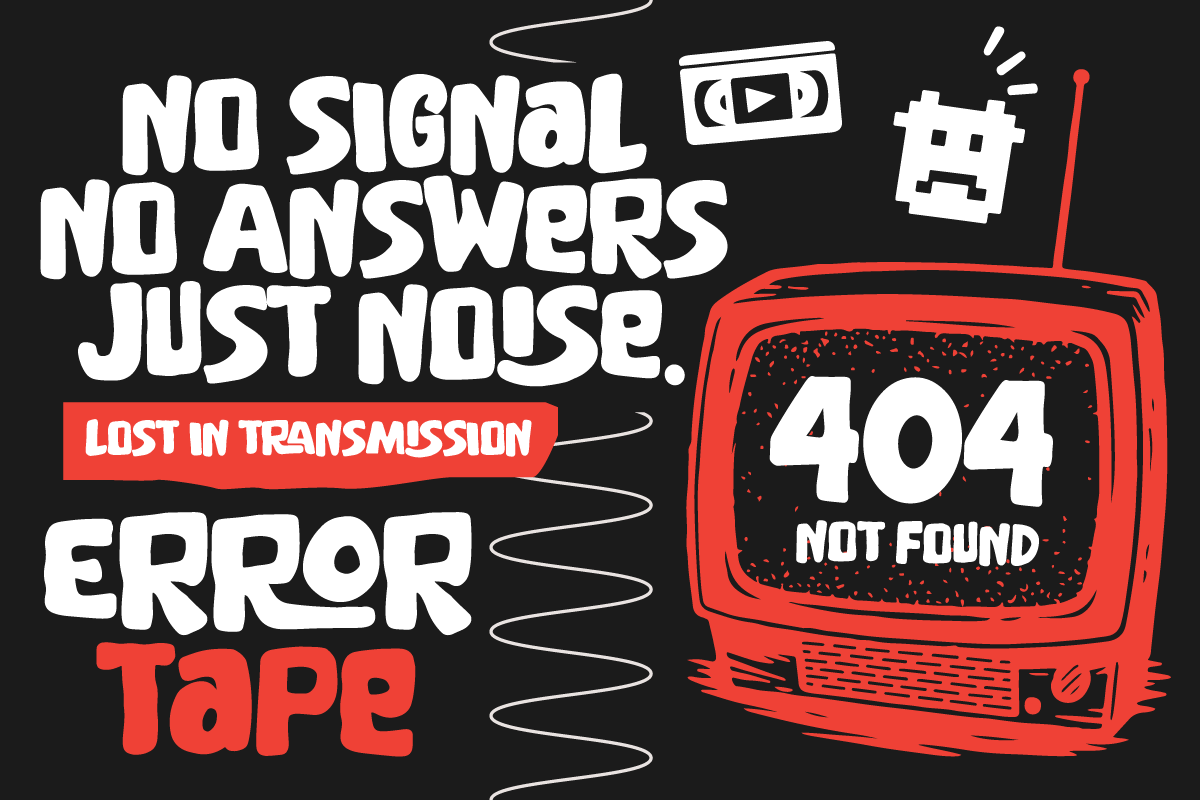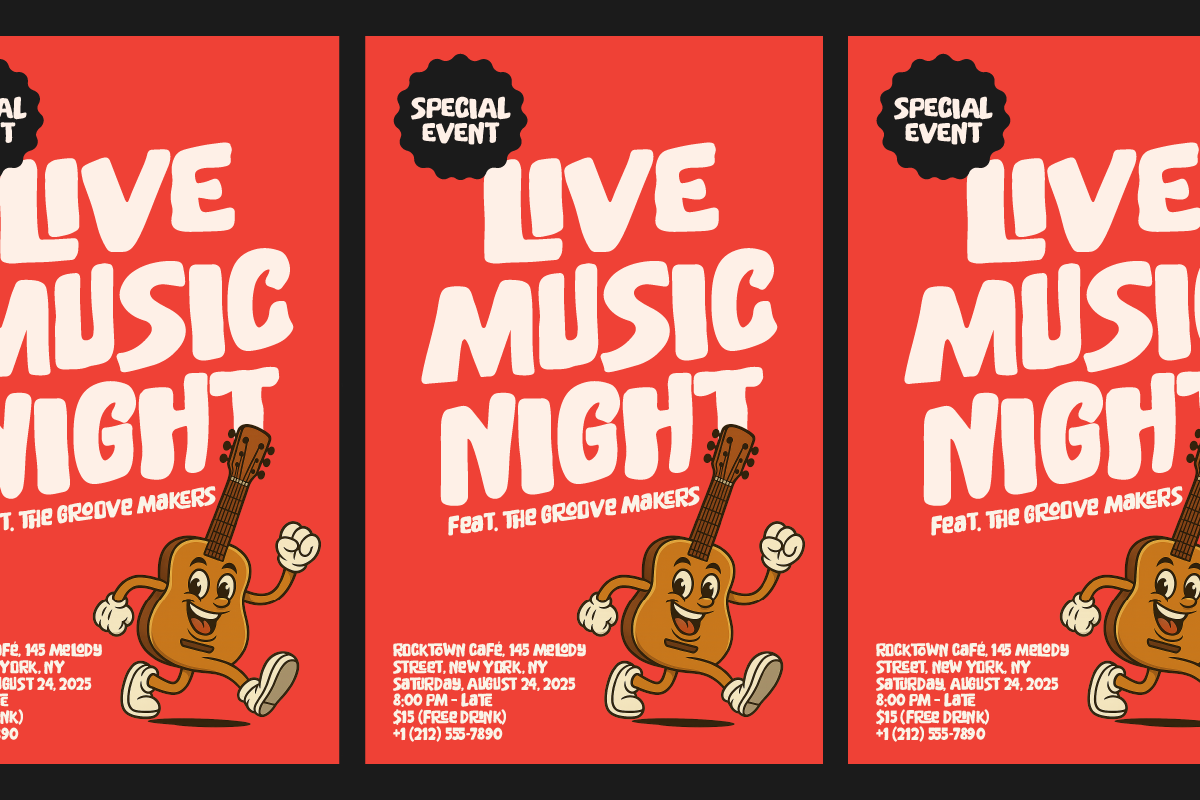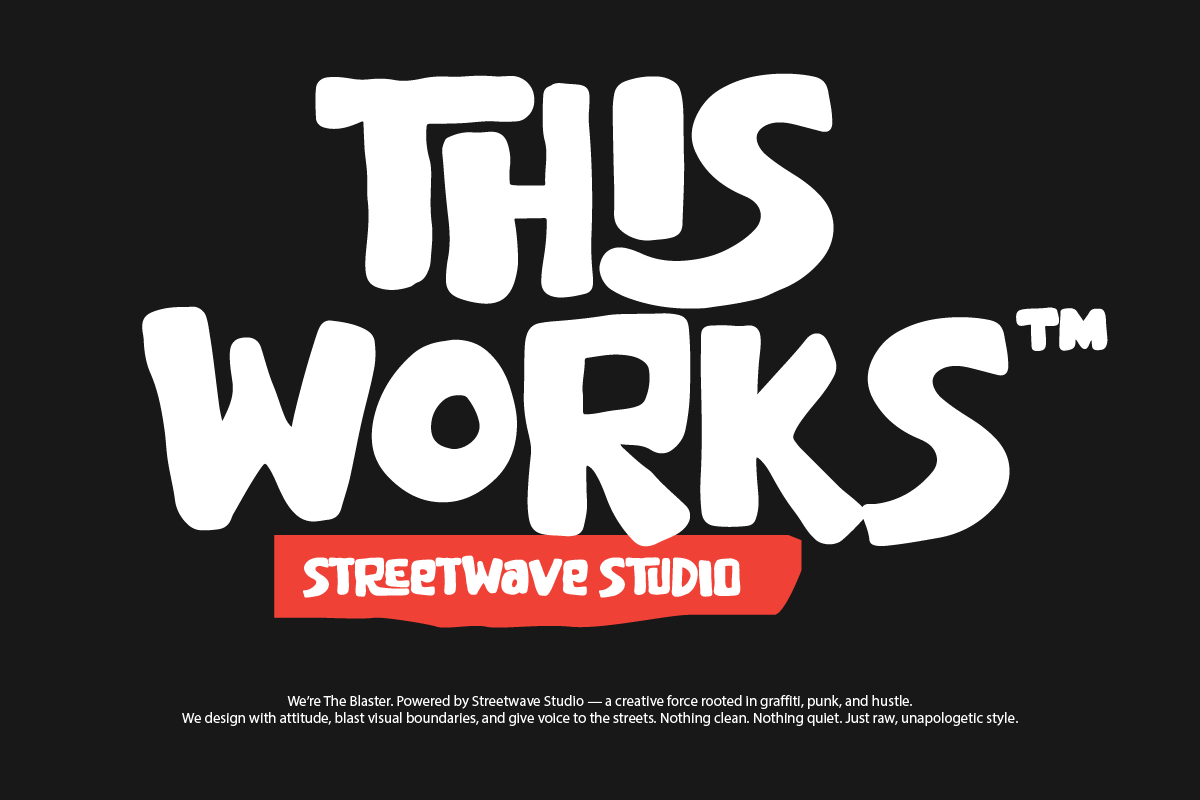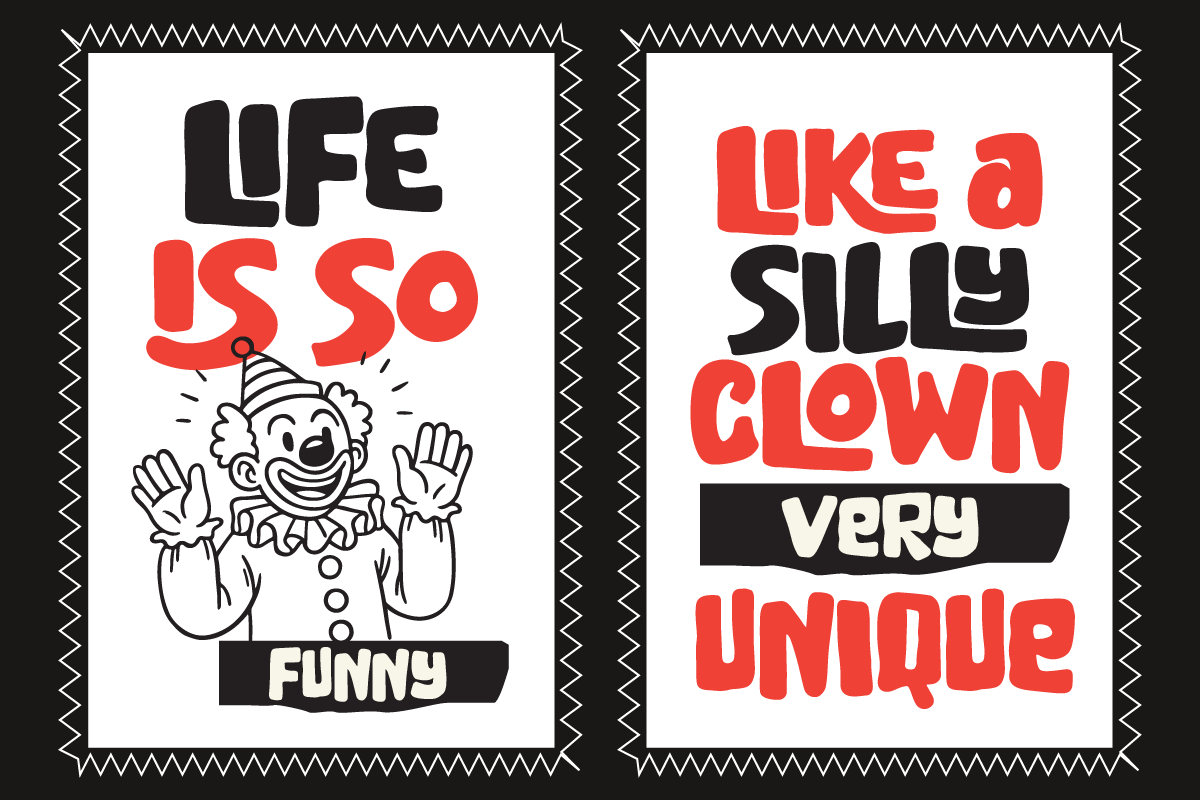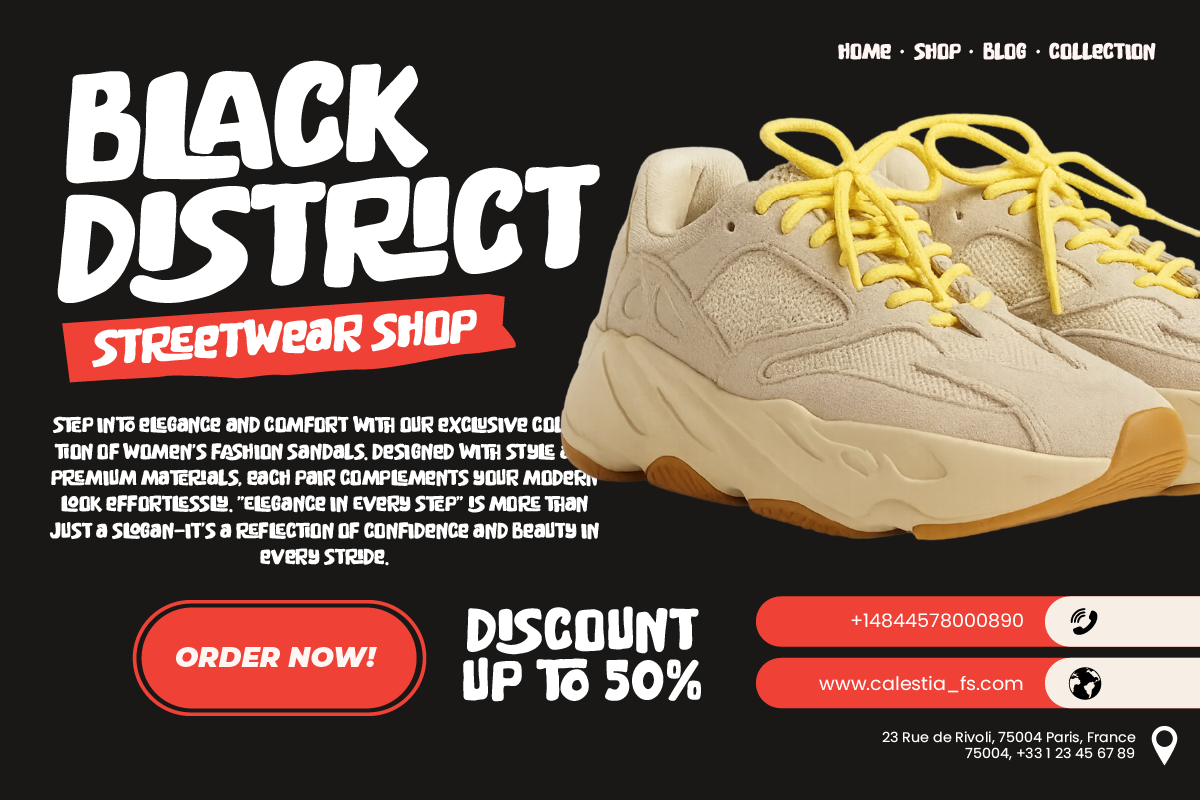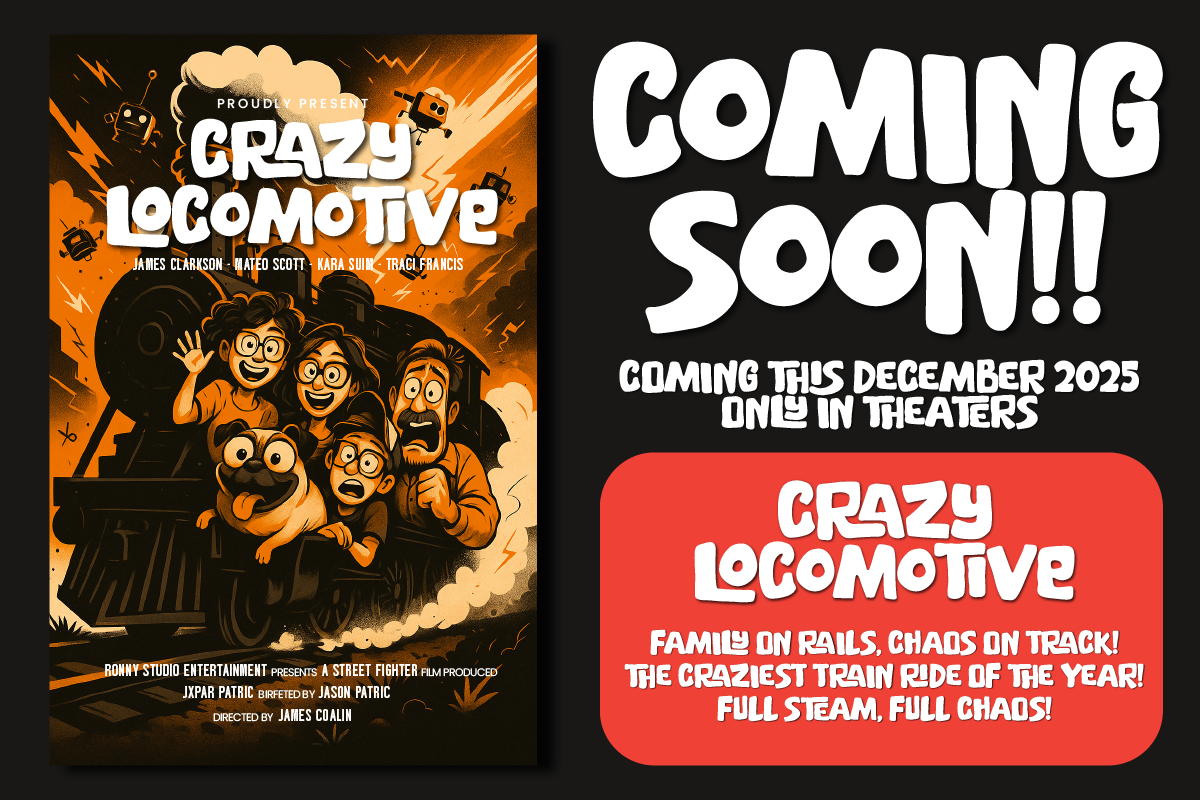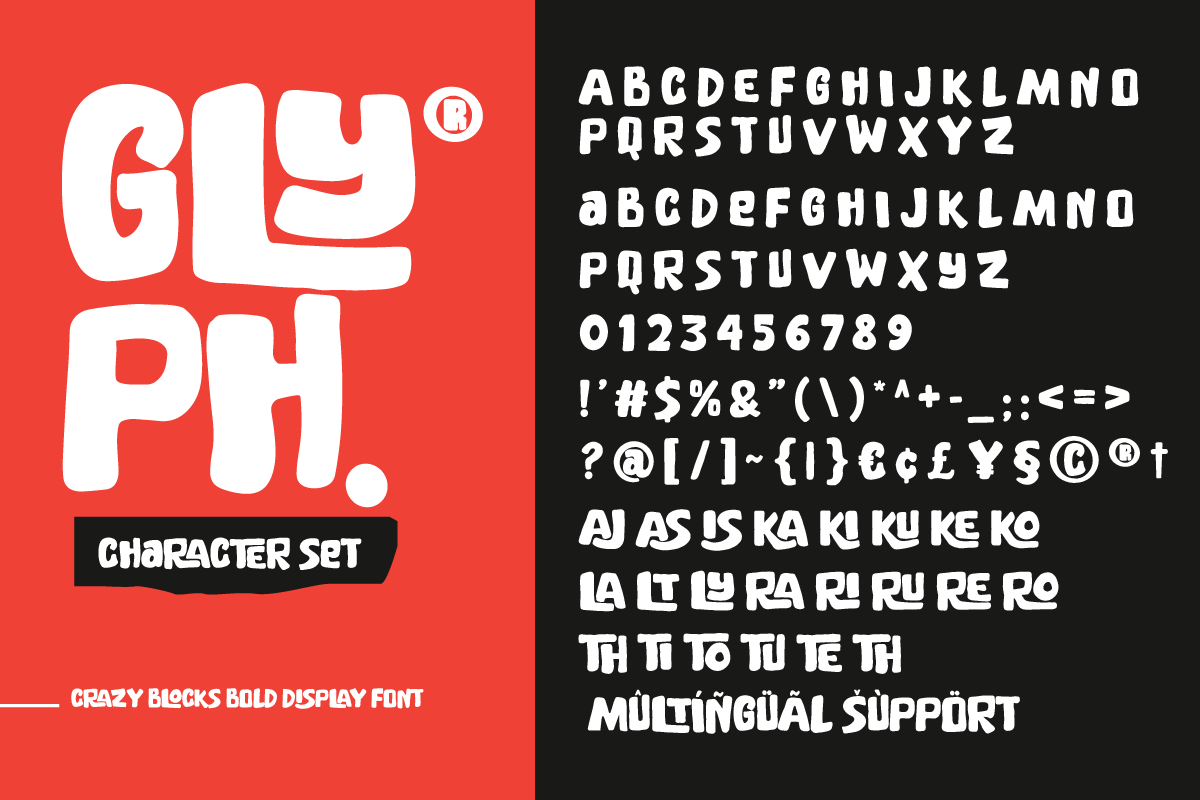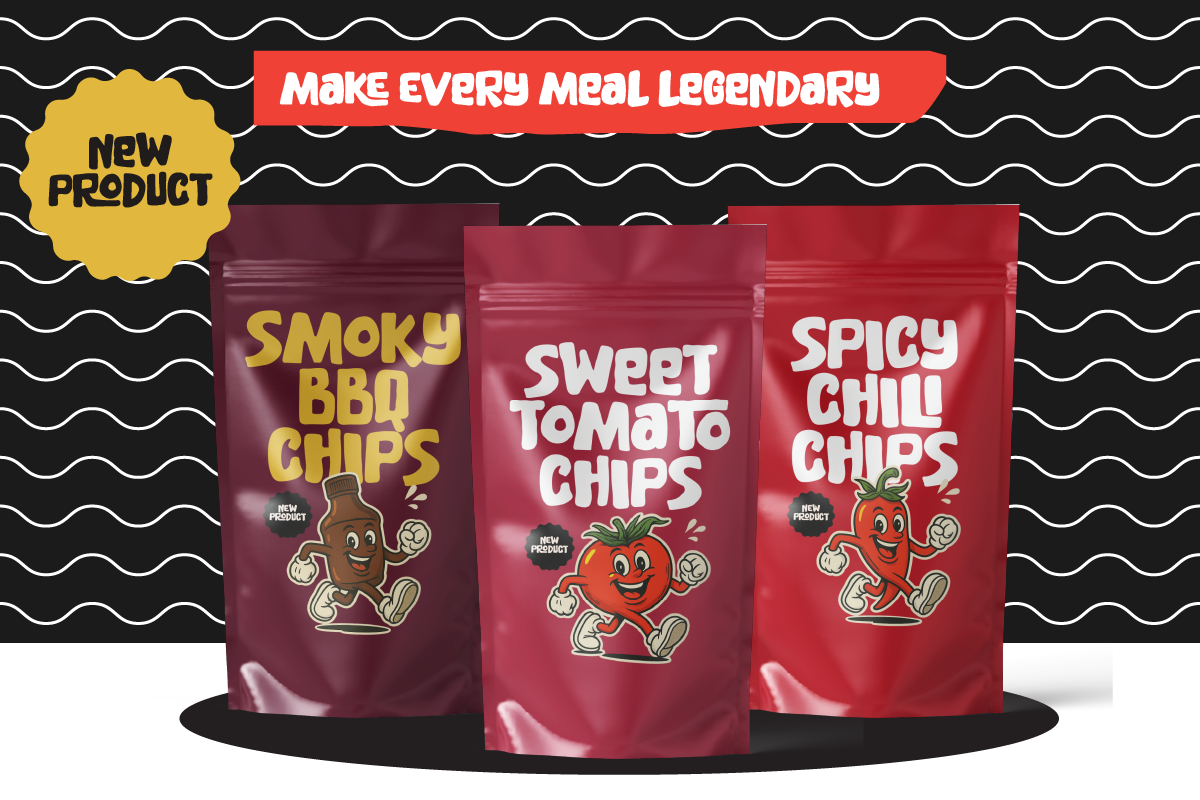
Crazy Blocks Bold Chunky Display
Crazy Blocks – Bold Display Font
Crazy Blocks is a bold display font with a chunky, playful, and characterful style. It's perfect for designs that want to appear unique, strong, and eye-catching. Its quirky letterforms create a modern, retro feel that's perfect for a variety of design needs.
- Bold handcrafted style
- Playful & quirky letterforms
- Uppercase, lowercase, ligature, alternate, numbers & punctuation
- Posters, flyers, event promotions
- Music and festival graphics
- Branding & logos
- Food & product packaging
- Streetwear & merchandise
- Retro-inspired projects